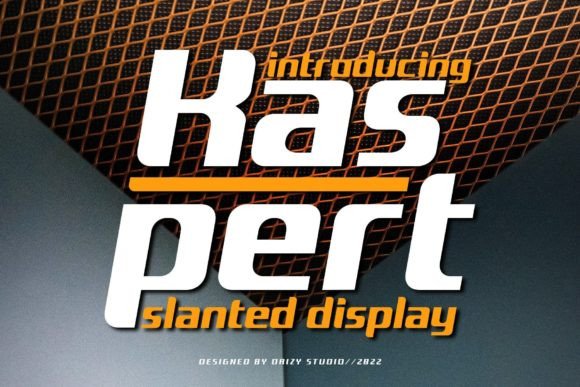
Step into the world of Kaspert Font, a captivating and striking display font engineered to transform your creative visions into mesmerizing masterpieces. Kaspert's bold and modern character exudes confidence and vitality, effortlessly commanding attention wherever it's showcased. Let your imagination soar as you witness Kaspert's transformative power, bringing life and energy to your projects with a touch of elegance.
Crafted by the renowned Drizy Studio, Kaspert Font is a sans serif masterpiece that defies convention. Its clean lines and sharp angles create a striking visual impact, while its carefully balanced proportions ensure effortless readability. Kaspert Font is not merely a font; it's an artistic expression that elevates your designs to new heights.
Immerse yourself in the world of Kaspert Font, where creativity reigns supreme. Watch in awe as your projects undergo a stunning metamorphosis, infused with a fresh and contemporary vibe. Kaspert Font is the ultimate choice for designers, artists, and creative professionals seeking to leave a lasting impression.
Harness the power of Kaspert Font and unlock a realm of endless possibilities. From dynamic headlines to captivating posters, from eye-catching social media posts to awe-inspiring presentations, Kaspert Font is your trusted companion, transforming your ideas into unforgettable visual experiences.
Join the creative revolution and embrace the transformative power of Kaspert Font. Let your imagination run wild as you explore the boundless creative possibilities, knowing that Kaspert Font will faithfully translate your vision into a breathtaking reality.